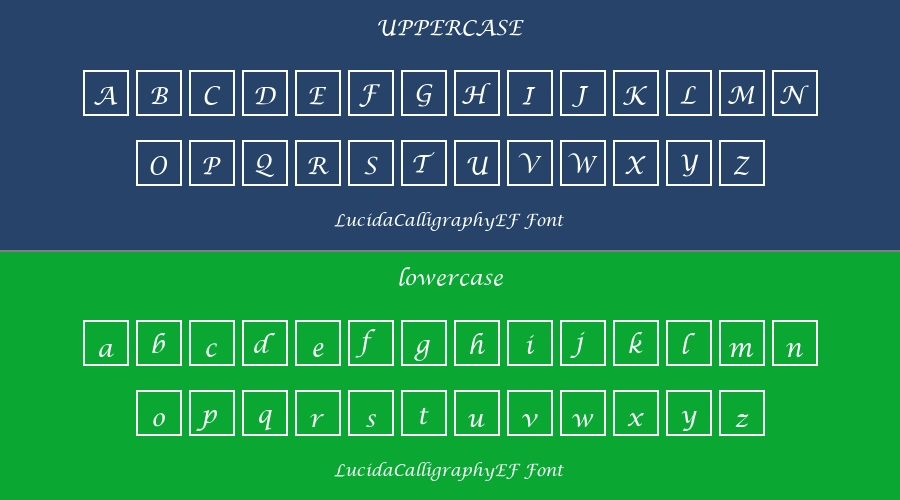
About LucidaCalligraphyEF Font
When typographic excellence matters most, LucidaCalligraphyEF Font delivers through its thoughtful blend of decorative alternates and reliability. Specially crafted for brand guidelines, it offers the functionality and industry recognition required for sophisticated design work. Every detail serves a purpose.
The character set showcases thoughtful details like script connections alongside functional connecting forms. This proves especially valuable in exhibition titles, where scanning accuracy directly influences results. Particular attention was paid to ear placement and standards alignment during development.